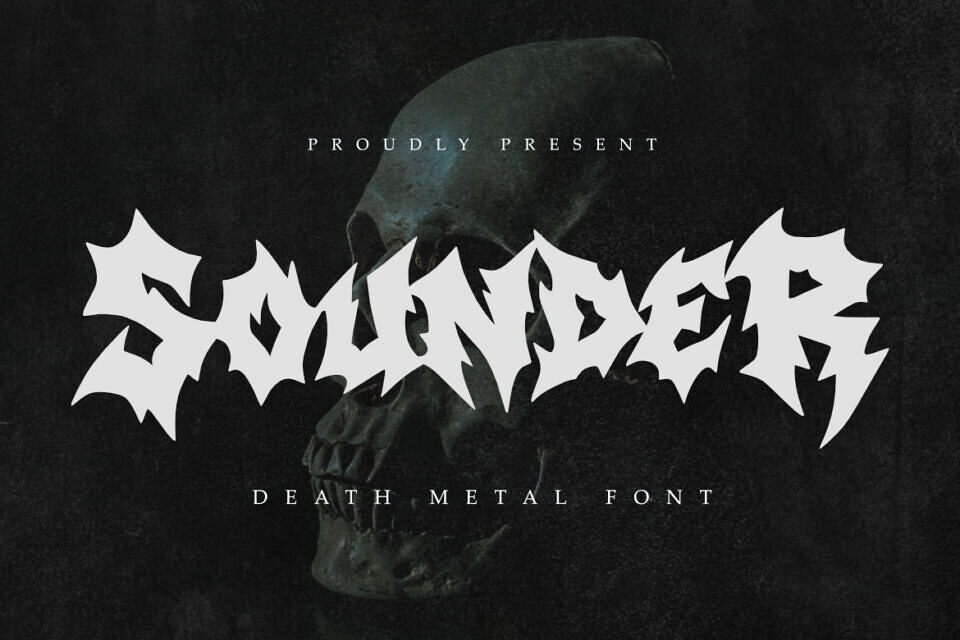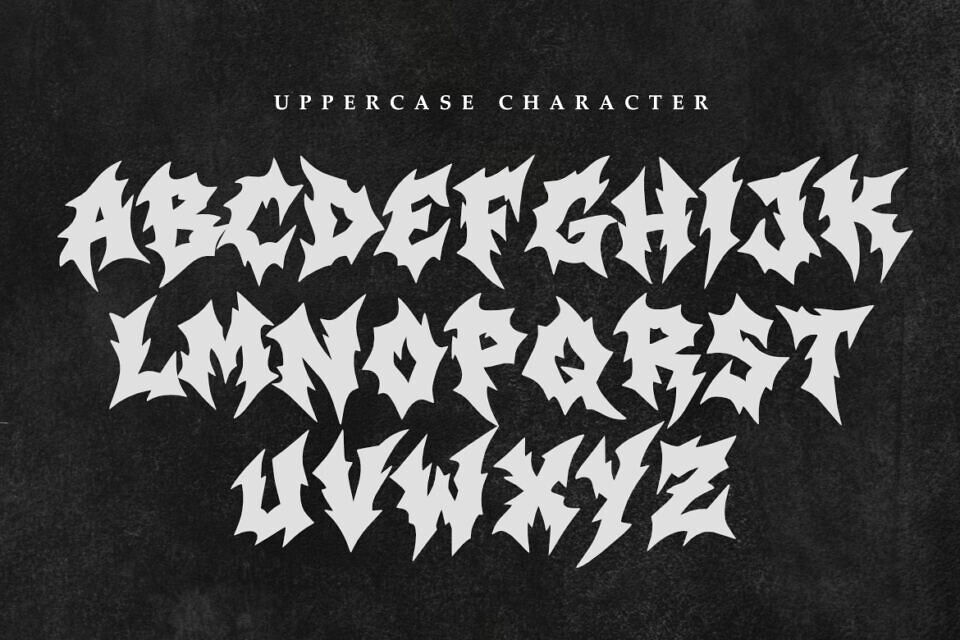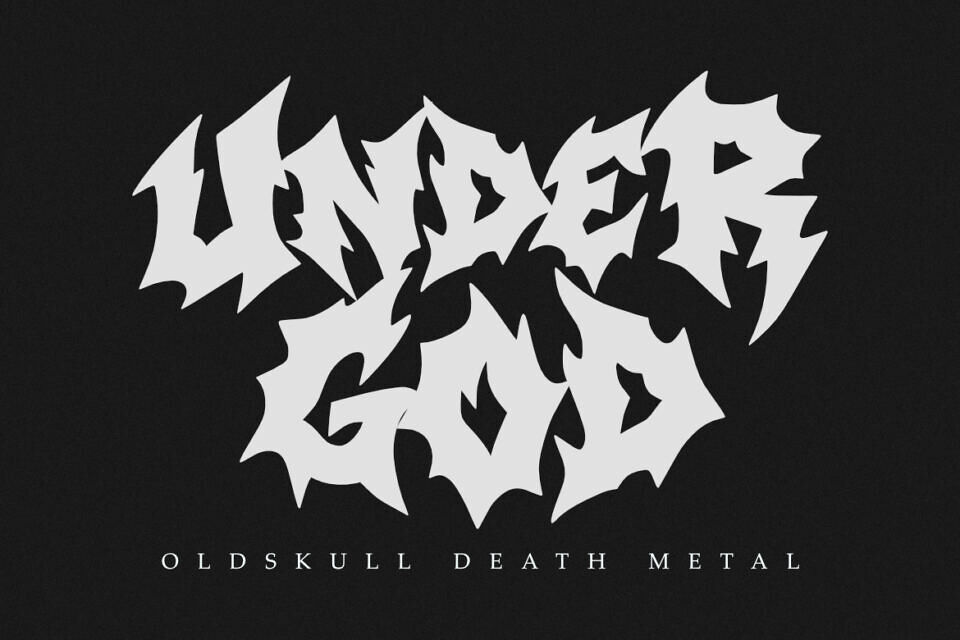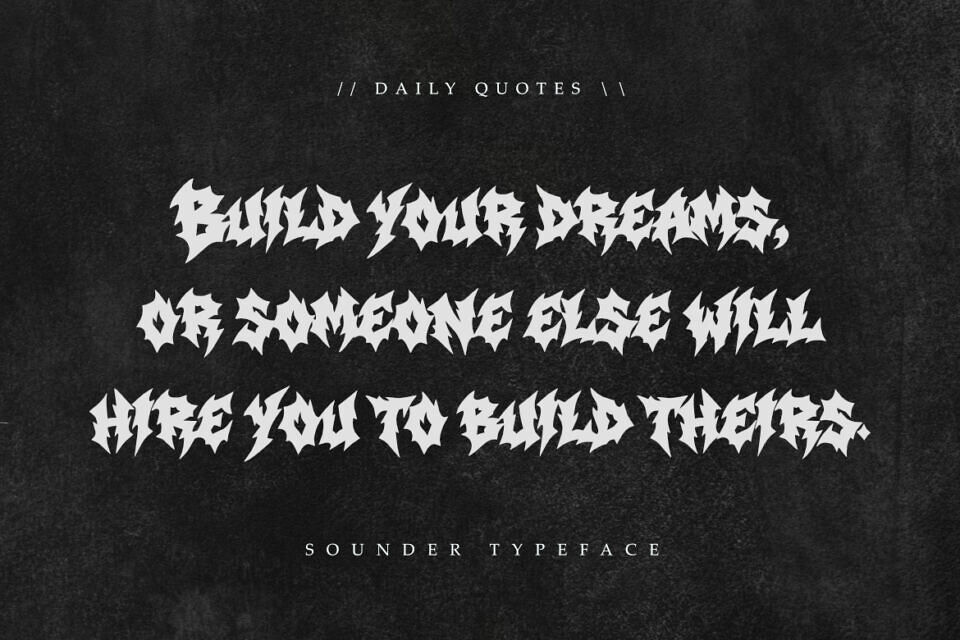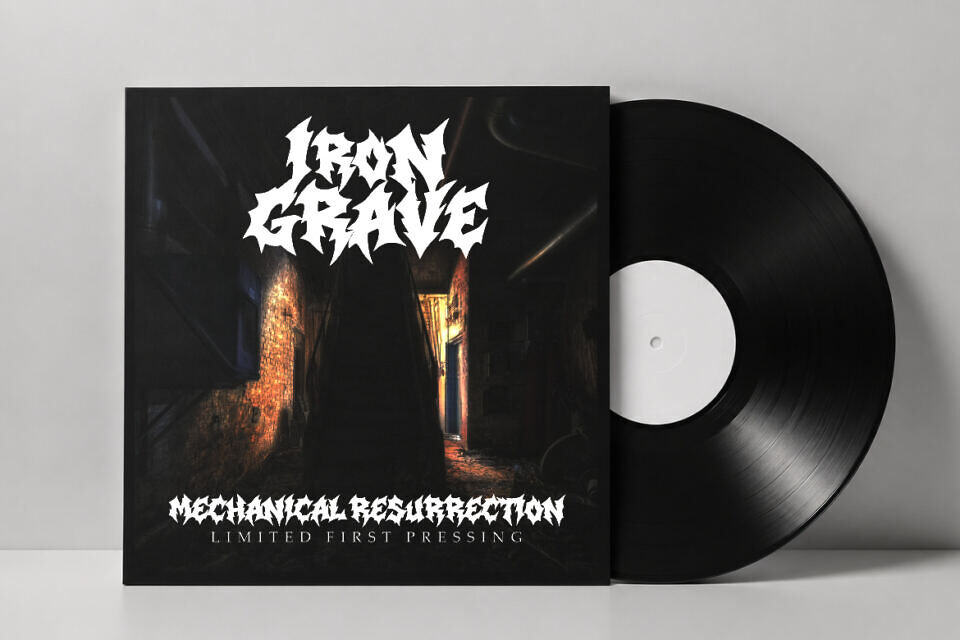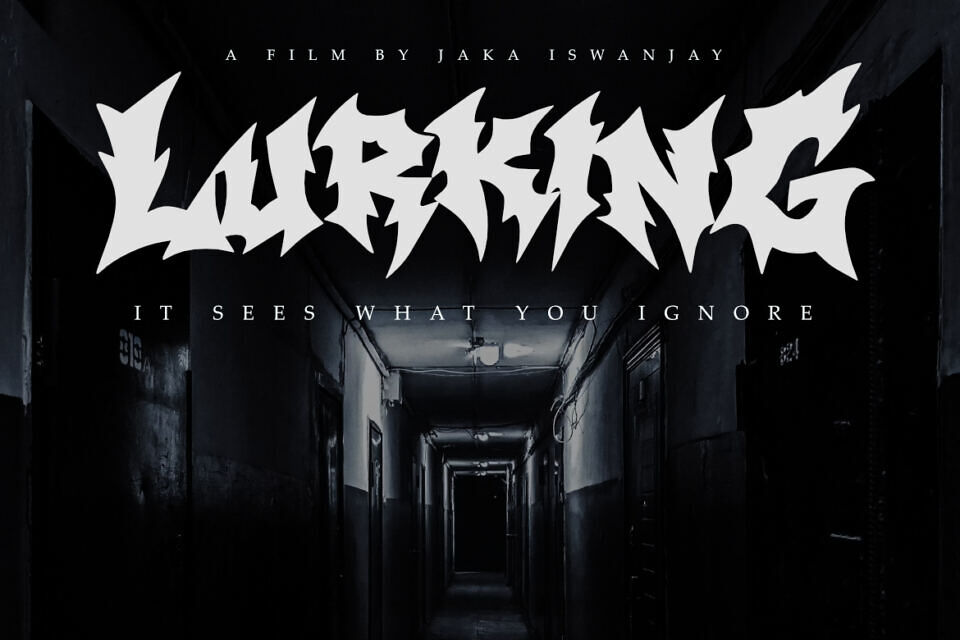
Sounder Font
Sounder is a brutal professional font designed for sophisticated branding and high-end extreme design projects. Its sharp and aggressive letterforms provide a contemporary yet timeless feel, striking a perfect balance between solid structural power and modern metal aesthetics.
Whether you are crafting a corporate identity for an extreme label, designing sleek business cards for a tattoo studio, or working on editorial content, Sounder ensures your work exudes professionalism and style. Ideal for branding, business logos, websites, and more, its refined design effortlessly elevates your project.